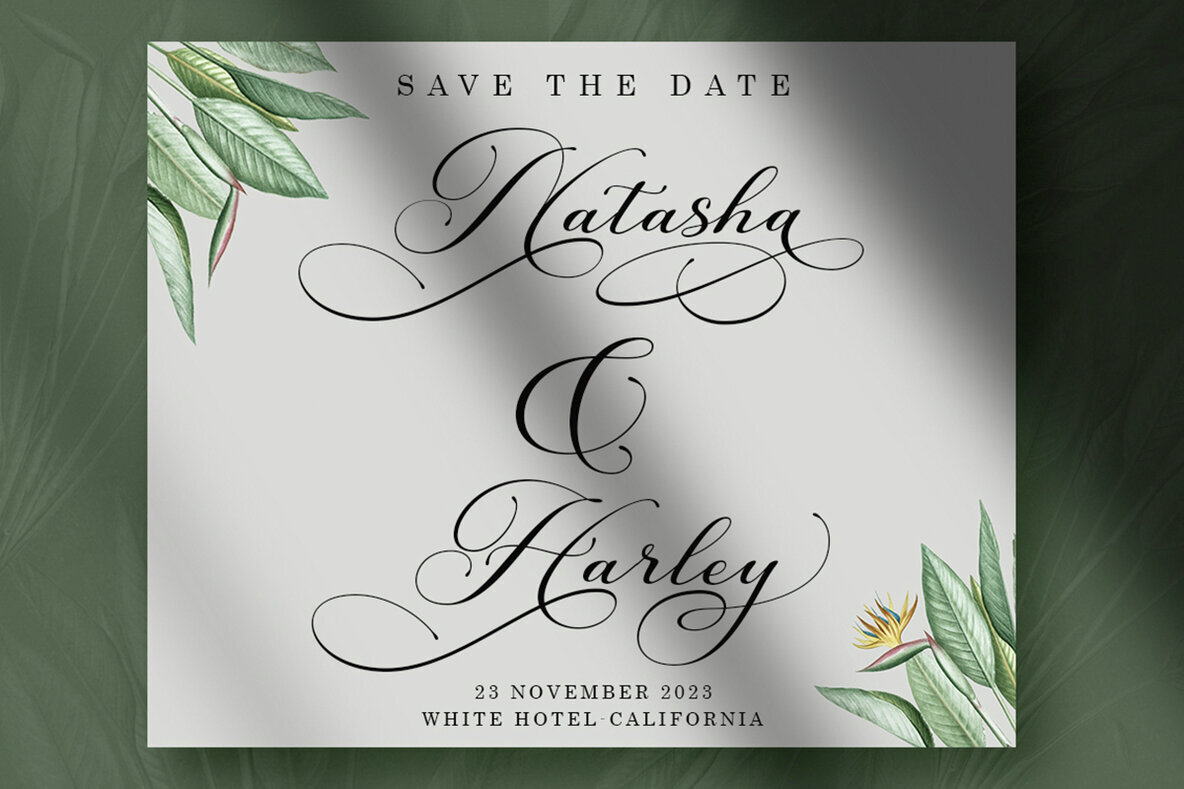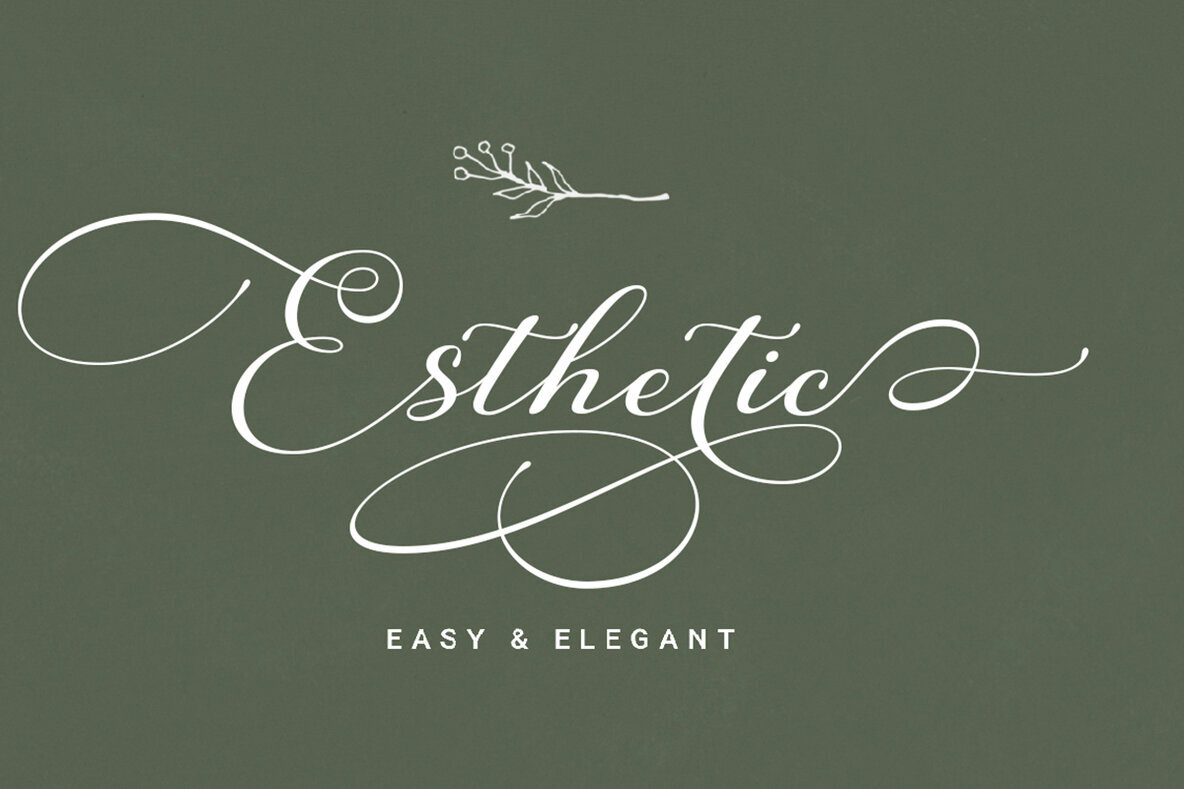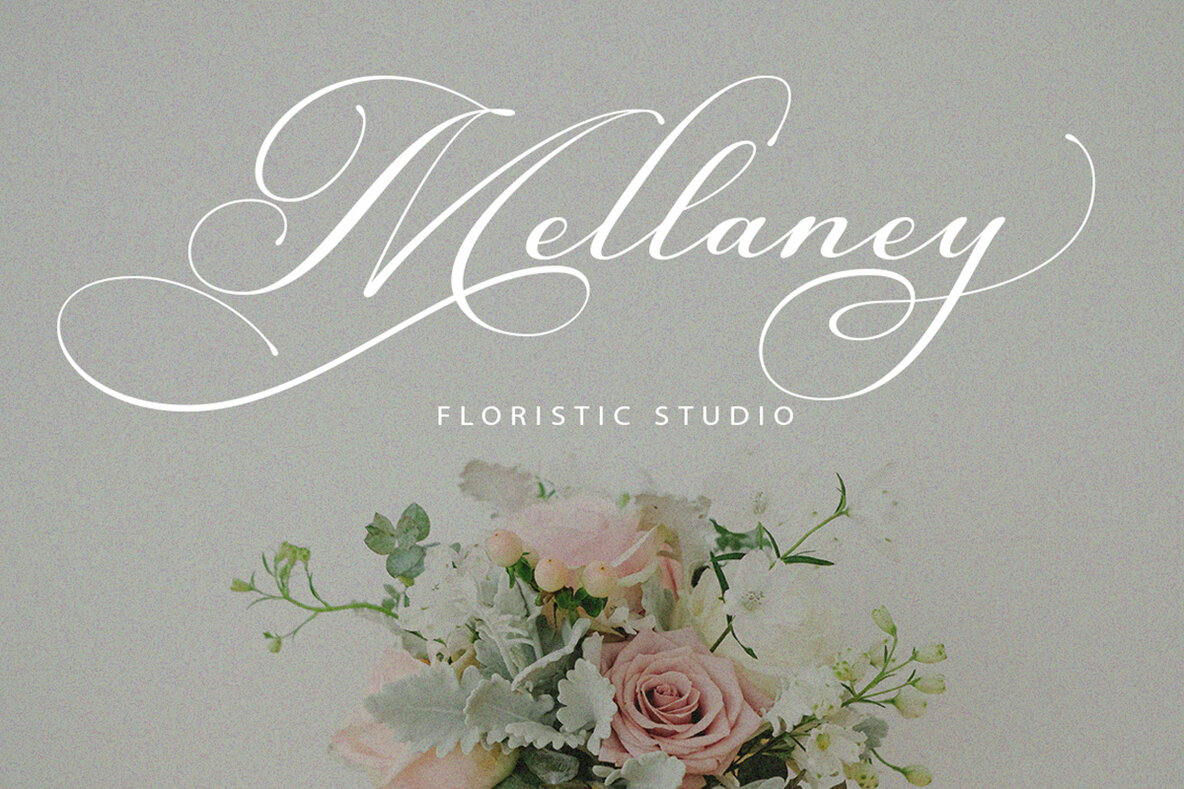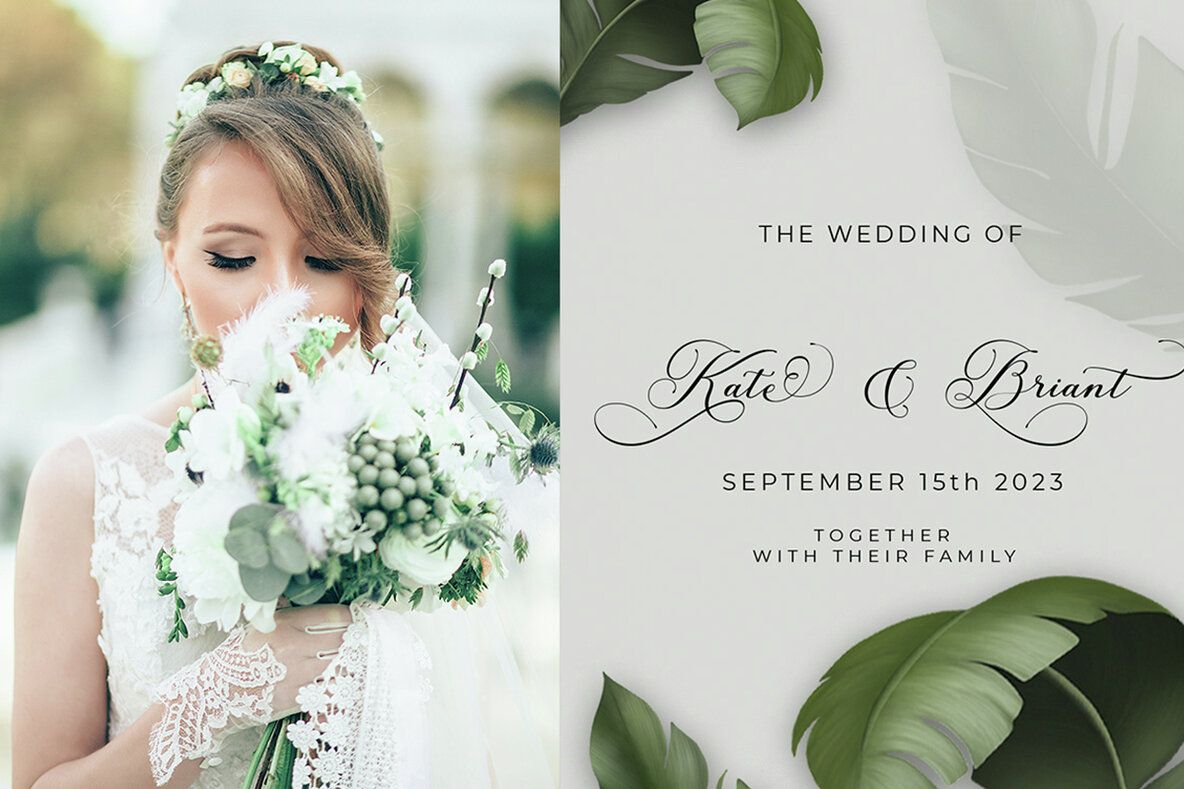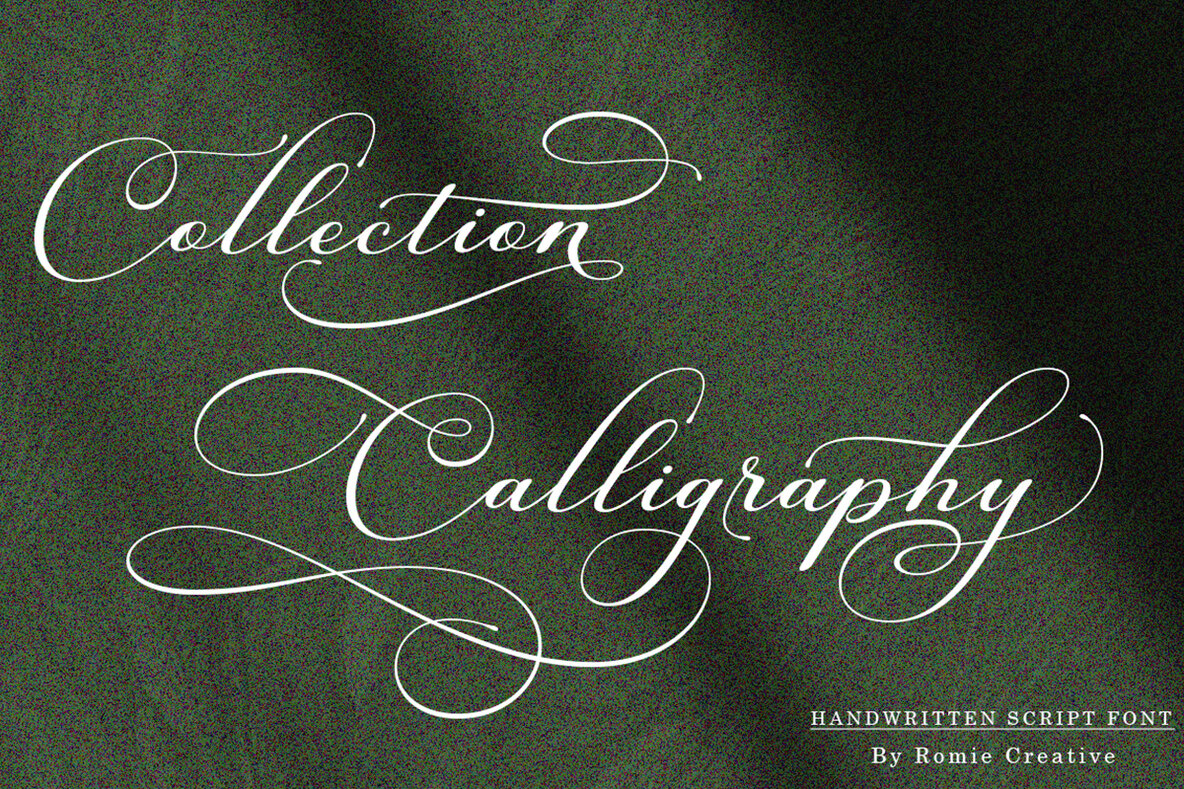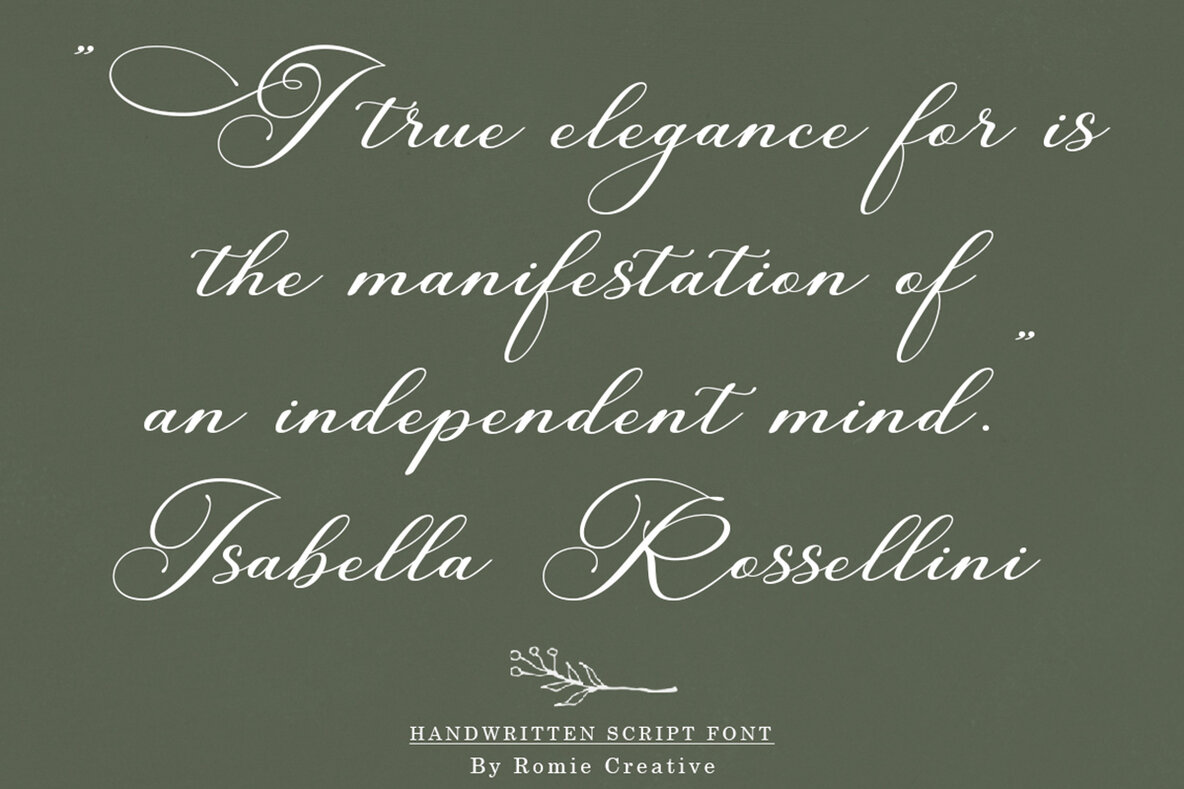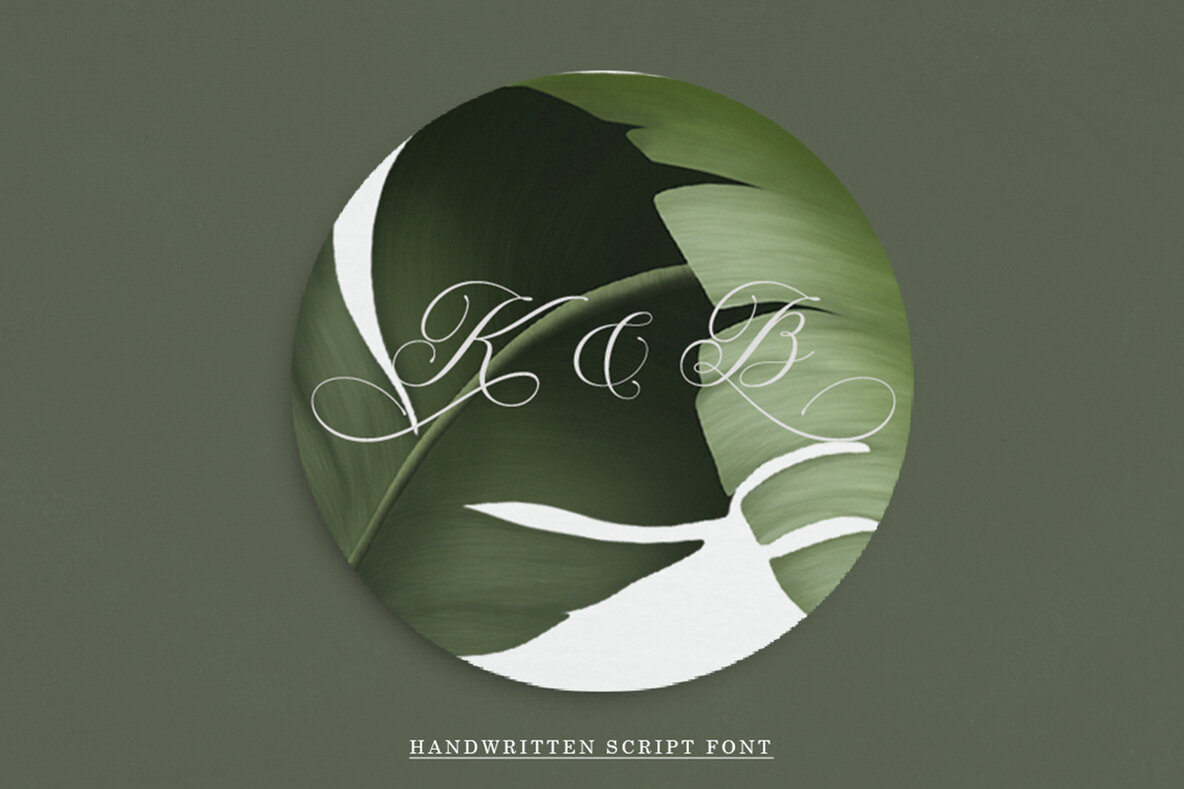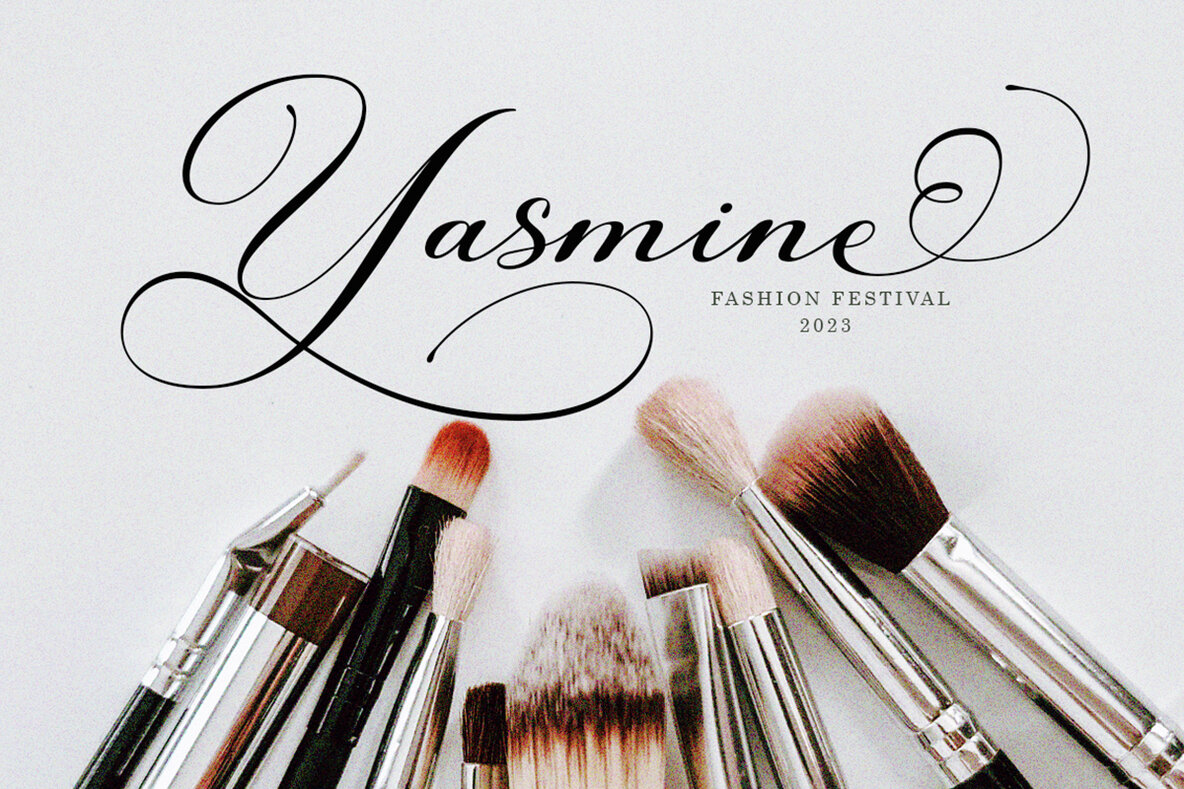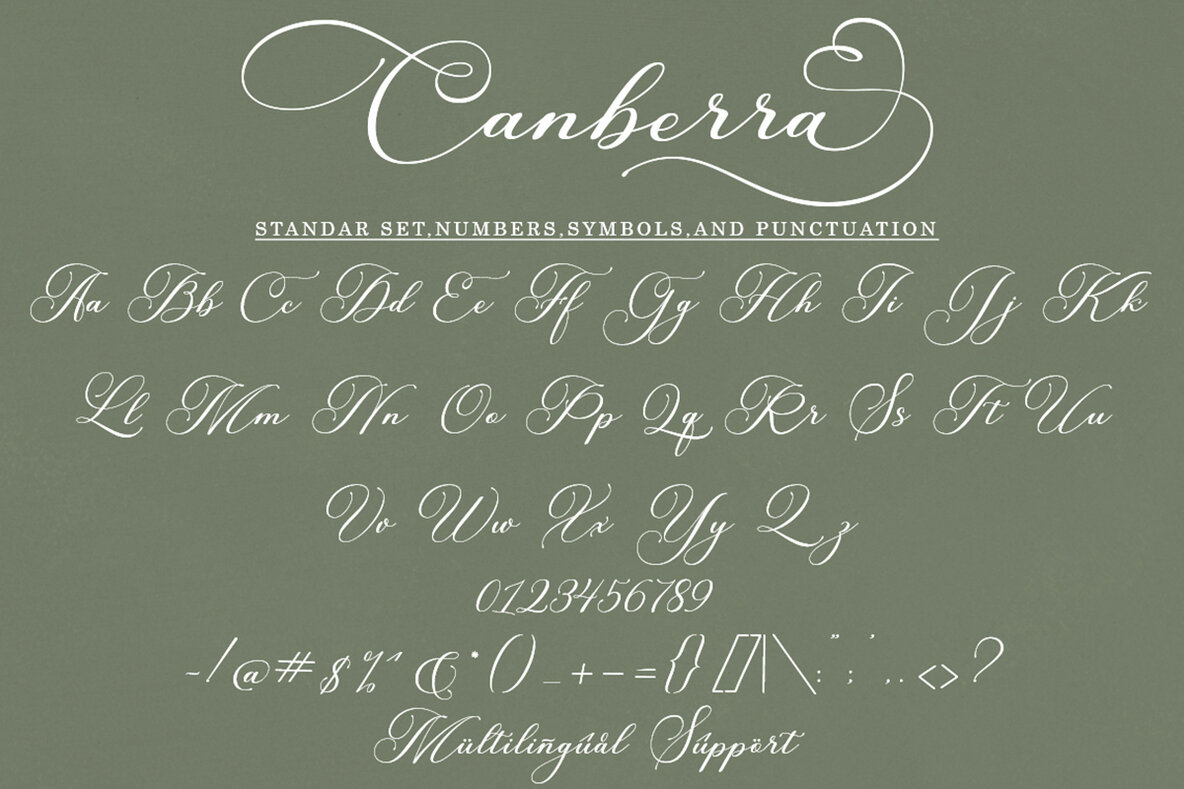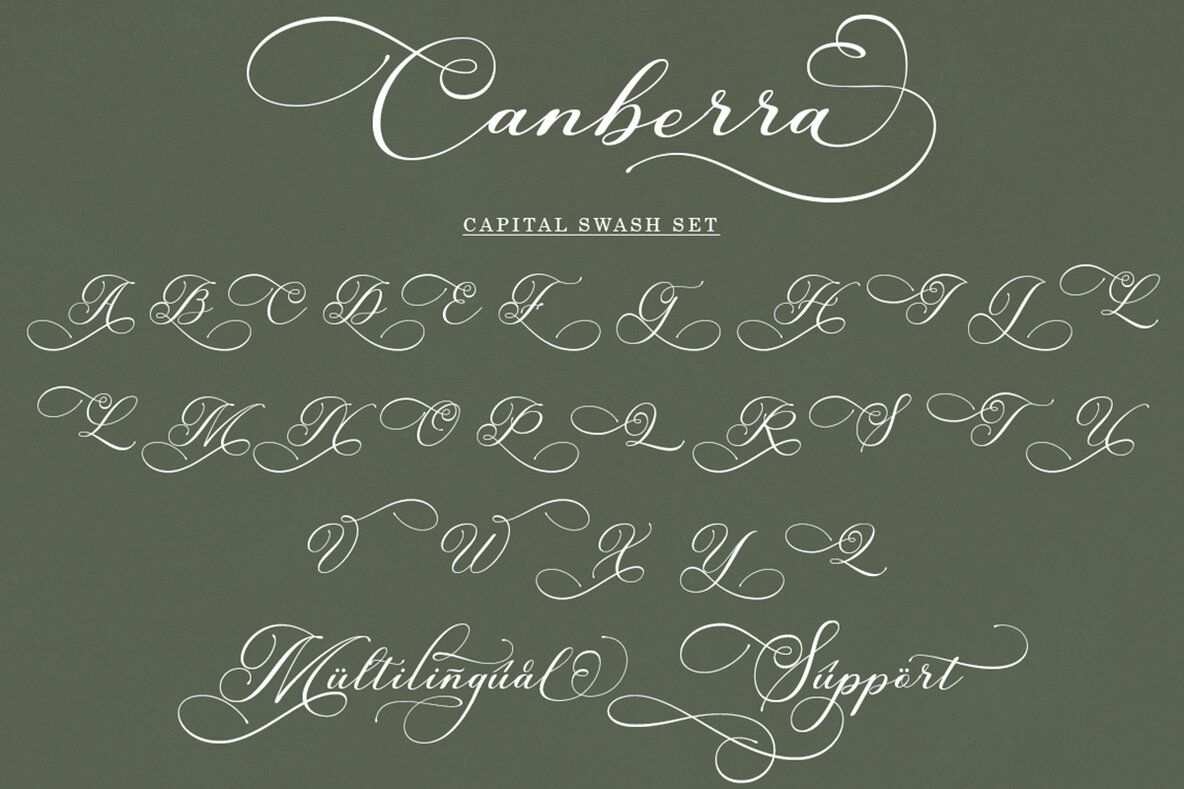
Canberra Font
Canberra Regular
Canberra is an elegant handwritten font with distinctive curves and eye-catching features, perfect for feminine-style projects. It boasts start and end engravings in both uppercase and lowercase letters, offering beautiful ligatures that excel in wedding designs, fashion projects, greetings, invitations, and social media posts. This versatile font provides an option for alternative glyphs, accessible via Font Book for Mac users or Windows Character Map for Windows users.
Canberra includes a full set of basic characters such as capital and lowercase letters, numbers, symbols, and punctuation. The font is PUA encoded and supports multilingual use, making it adaptable for various design needs.